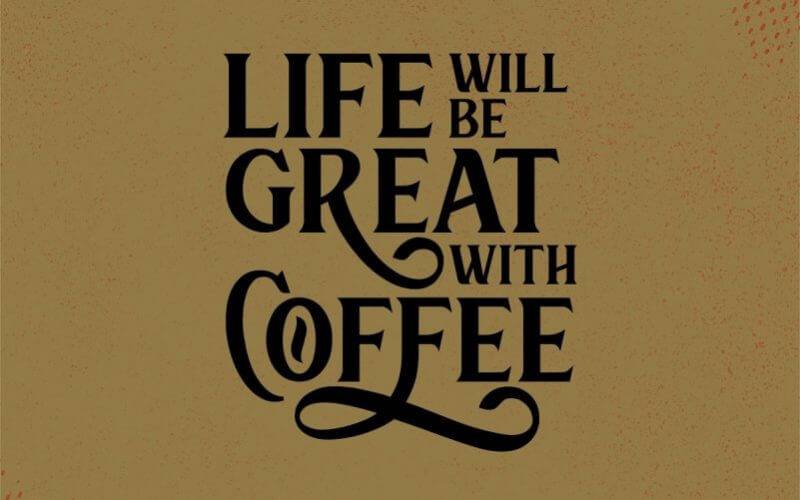
Sultan Serif Font
Thank you for searching Sultan Font. This is a chic formidable serif font with lovely change characters and ligature, which makes it smooth to create a brand on your non-public branding and your commercial enterprise beautifully. It has an antique shape with the addition of present-day ornamental and minimalist shapes. This Font includes unique uppercase letters and changes characters. The Font is designed and posted with the aid of using ErgibiStudio.
The Font has multilingual aid and is best for logos, branding, mockups, t-shirts, branding, and numerous wishes that need this antique shape. If you’re seeking to make any antique layout, do this one because it’s far from the satisfactory Font to make any antique layout stand out.
Sultan Serif Font View